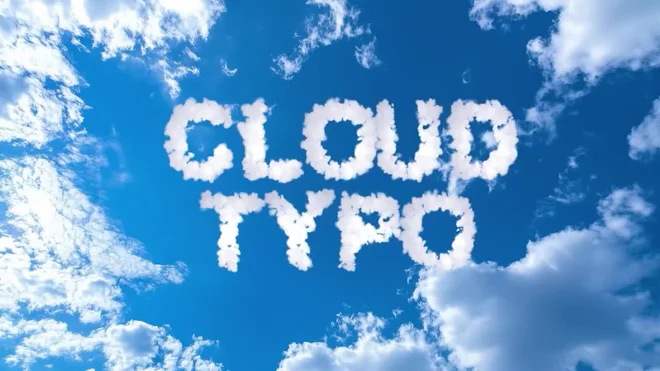
This stock motion graphics video pack includes 36 different clips of cloud letters and numbers on a transparent alpha channel. Resolution is 1000x1000.